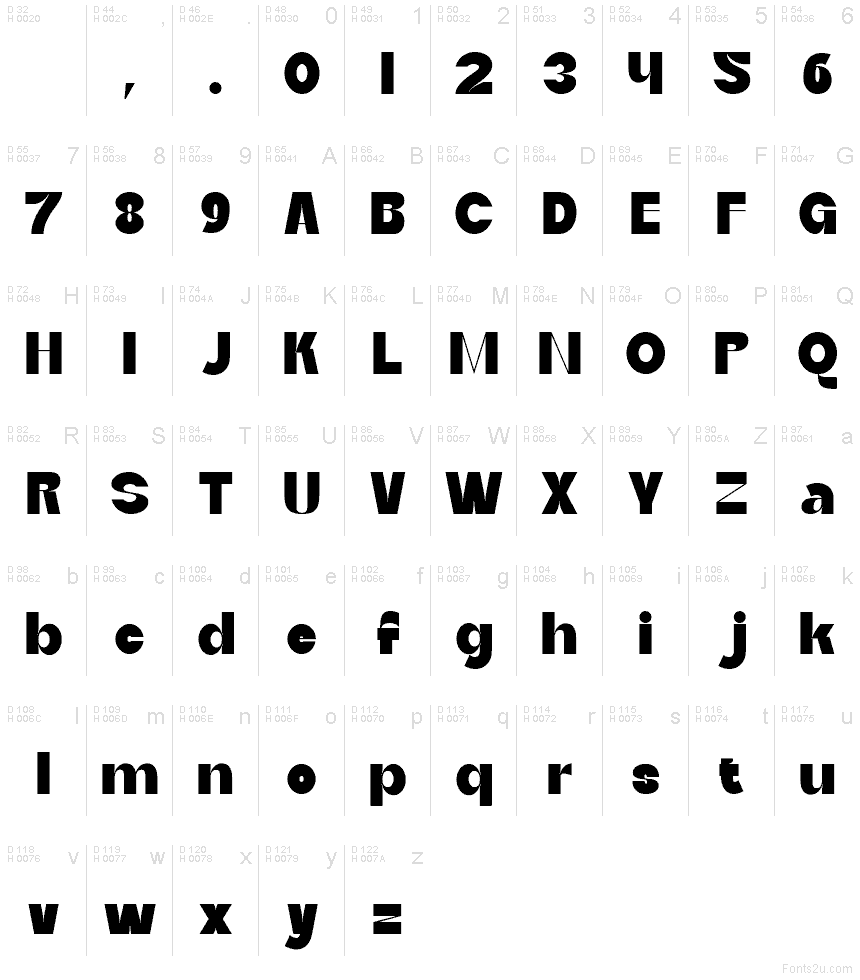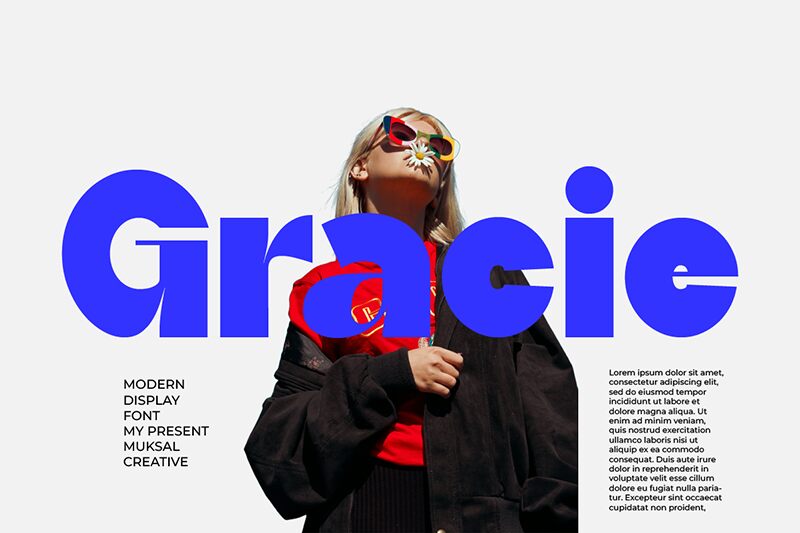
Gracie Regular
Gracie font designed by Muksal Creative is a free retro bold display font with minimalism influences. The latter is achieved via simple yet unusual cuts to each of the letters, both uppercase and lowercase. Some other characteristics include its geometric appearance which also makes it fit into futuristic and experimental styles.
Use Gracie for designing magazine covers, posters, catalog layouts, banners, social media graphics, website headers/footers, apps or even logos if you find that suitable. It can also be useful in branding design along with packaging and labels especially for young new businesses.